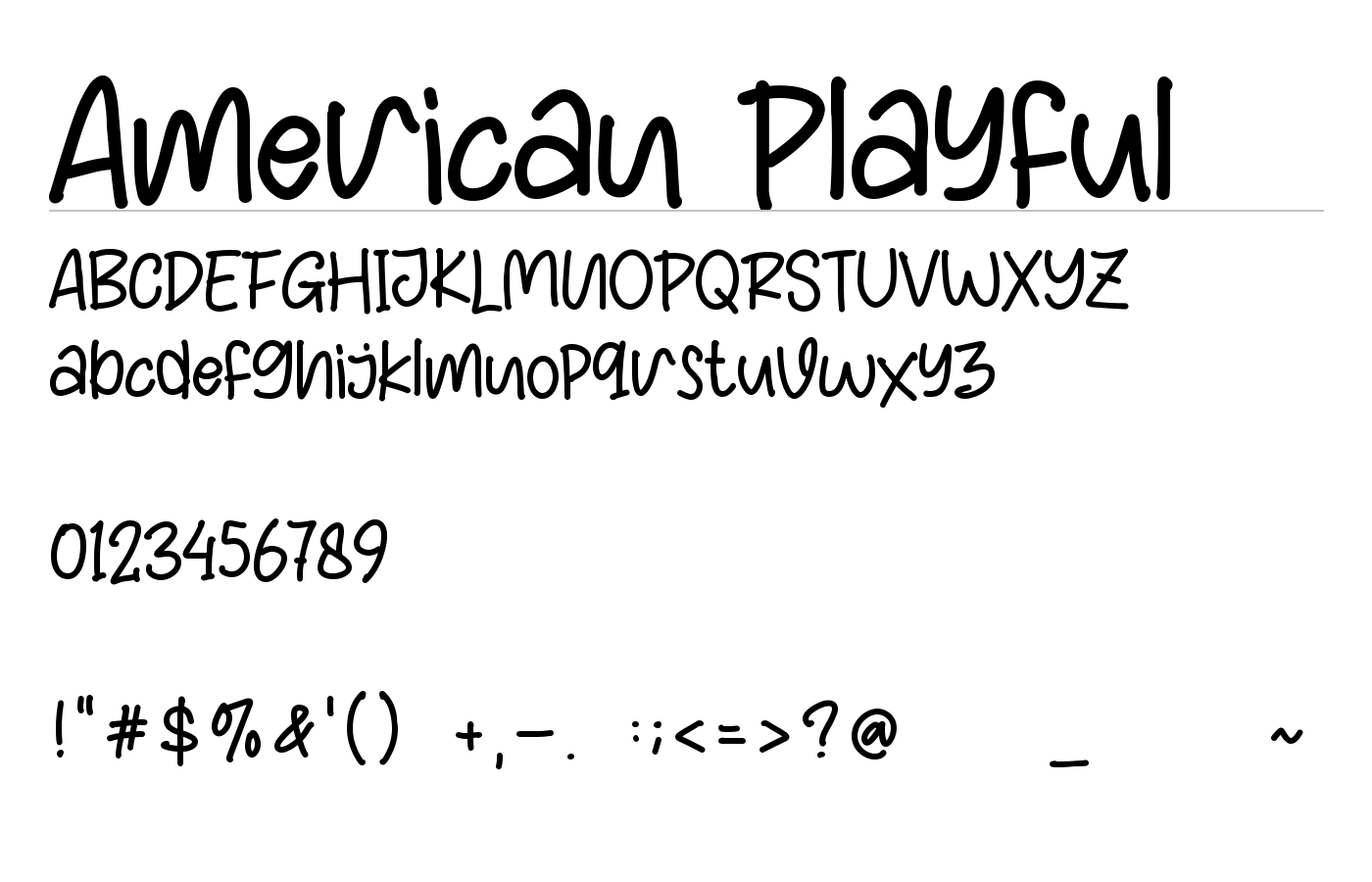
American Playful is a casual, handwritten sans serif font with a lively and friendly personality. Its irregular, tall letterforms and smooth, rounded strokes create an inviting and approachable feel, perfect for fun, informal designs like children's books, playful branding, or creative projects. This font works well in headlines and display uses where a personal, energetic touch is desired.
American Playful Font
About American Playful Font